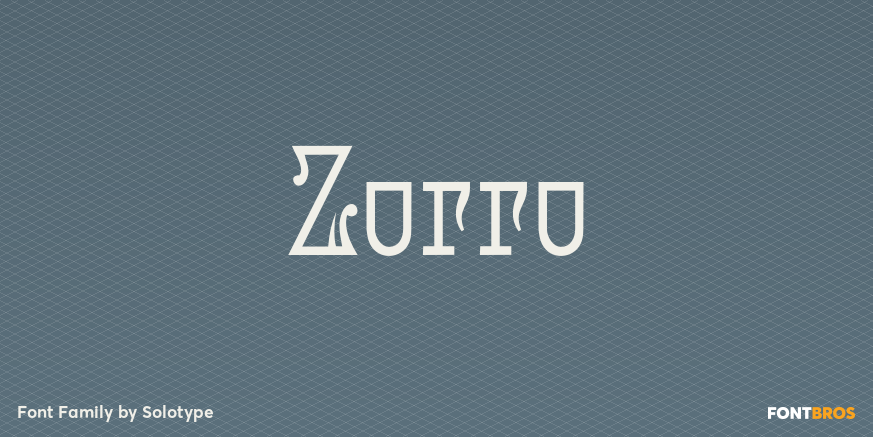
Zorro
About Zorro
A reasonably accurate rendering of an old favorite font from Victorian times. Quite readable in lowercase, and very eye-catching in all-caps. We got the proof for this in London many years ago, but neglected to learn the name. Zorro sounds good.